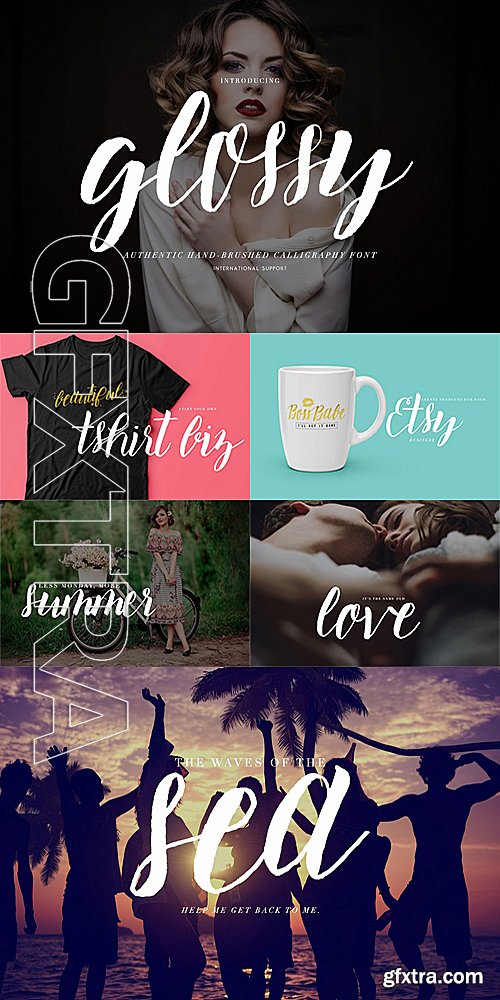
CM - Brush Script Font Glossy Script 1231588
Glossy Script is a brush script font with a rough edge feel of using a fude marker brush pen. You're getting multiple glyphs so that your letters look unique and authentic when it comes to a hand-lettered font. Plus, I've included International characters and a bonus set of watercolor Photoshop styles.